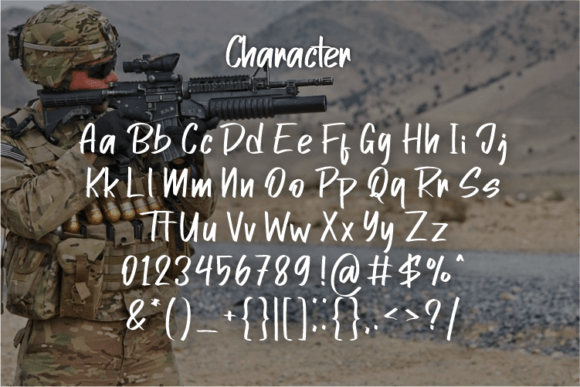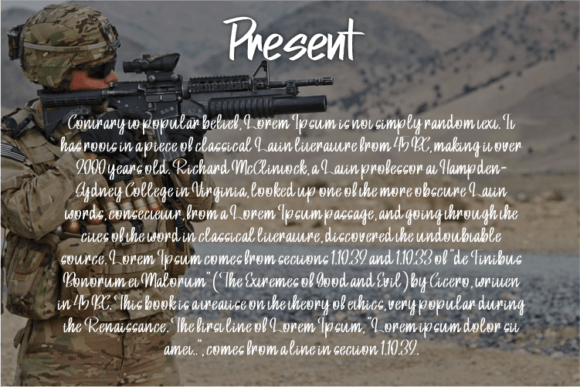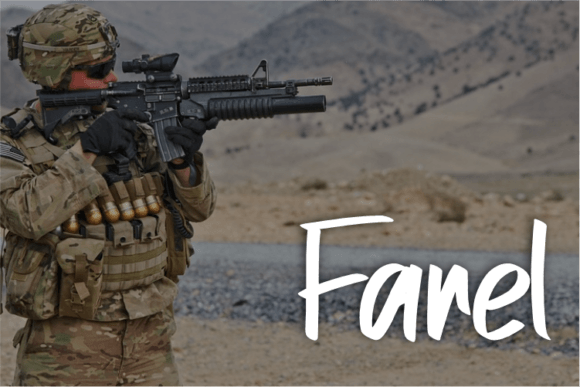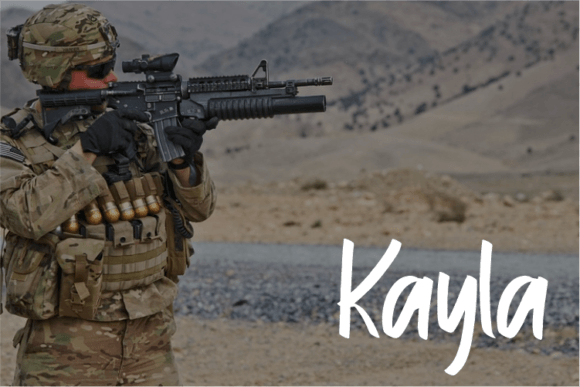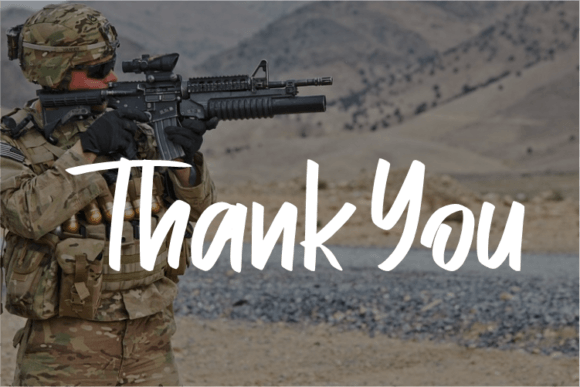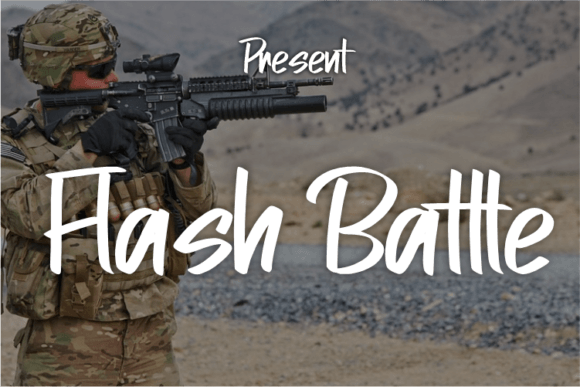
Introducing Flash Battle Font: Elevate Your Designs with Timeless Elegance
In the world of design, typography plays a crucial role in conveying messages, expressing creativity, and capturing the audience’s attention. For designers and crafters seeking a font that embodies both modernity and classic sophistication, Flash Battle Font is an exceptional choice. This trendy handwritten font is inspired by timeless classic calligraphy, bringing an impeccable form and a contemporary atmosphere to your design projects.
The Essence of Flash Battle Font
Flash Battle Font is not just a typeface; it’s an experience. Its elegant strokes and refined appearance are reminiscent of traditional calligraphy, yet it carries a fresh and modern vibe that sets it apart from more conventional fonts. This unique blend makes Flash Battle an excellent tool for designers looking to add a touch of class and sophistication to their work.
Key Features of Flash Battle Font
- Handwritten with a Personal Touch: Flash Battle boasts a handwritten style that feels personal and approachable. Its fluidity and natural flow make it perfect for projects that require a human touch.
- Contemporary Atmosphere: Despite its classic inspiration, Flash Battle Font carries a contemporary feel that aligns well with current design trends. This makes it versatile for a wide range of projects, from modern branding to traditional stationery.
- Impeccable Form: The font’s design focuses on impeccable form, ensuring that each letter and word is not only beautiful on its own but also harmonious when combined. This attention to detail enhances readability and aesthetic appeal.
- Elegance and Class: Flash Battle Font is the epitome of elegance. Its classic roots and modern execution make it an excellent choice for designers aiming to infuse their projects with sophistication and style.
Applications of Flash Battle Font
The versatility of Flash Battle Font makes it suitable for a myriad of design projects. Here are some applications where this font truly shines:
- Branding and Logotypes: Create a lasting impression with a logo that exudes elegance and professionalism. Flash Battle Font can help establish a brand’s identity with a sophisticated and modern appeal.
- Wedding and Event Stationery: Add a touch of luxury and romance to wedding invitations, menus, and event programs. The font’s classic elegance makes it perfect for special occasions.
- Packaging Design: Stand out on store shelves with packaging that combines modern trends and timeless elegance. Flash Battle Font can elevate product labels and packaging materials.
- Digital Media: From website headers to social media graphics, Flash Battle Font can bring a level of sophistication to digital content, making it more engaging and visually appealing.
Why Choose Flash Battle Font?
In a sea of fonts, Flash Battle stands out for its unique blend of classic calligraphy and modern design. Here are a few reasons why designers and crafters should consider adding Flash Battle Font to their collection:
- Unique Style: Flash Battle offers a distinctive style that can set your designs apart from the crowd.
- Versatility: Its adaptability to various design projects makes it a valuable asset for any designer.
- Ease of Use: Designed with readability in mind, Flash Battle Font is easy to use in various contexts, from digital screens to print materials.
Flash Battle Font is more than just a typeface; it’s a design statement. With its roots in classic calligraphy and a fresh, modern approach, it offers designers and crafters a tool to elevate their projects with elegance and class. Whether you’re working on branding, stationery, packaging, or digital media, Flash Battle Font is poised to add a touch of sophistication and timeless beauty to your designs.
Embrace the world of typography with Flash Battle Font and discover how this trendy, handwritten font can transform your design projects into stunning works of art.